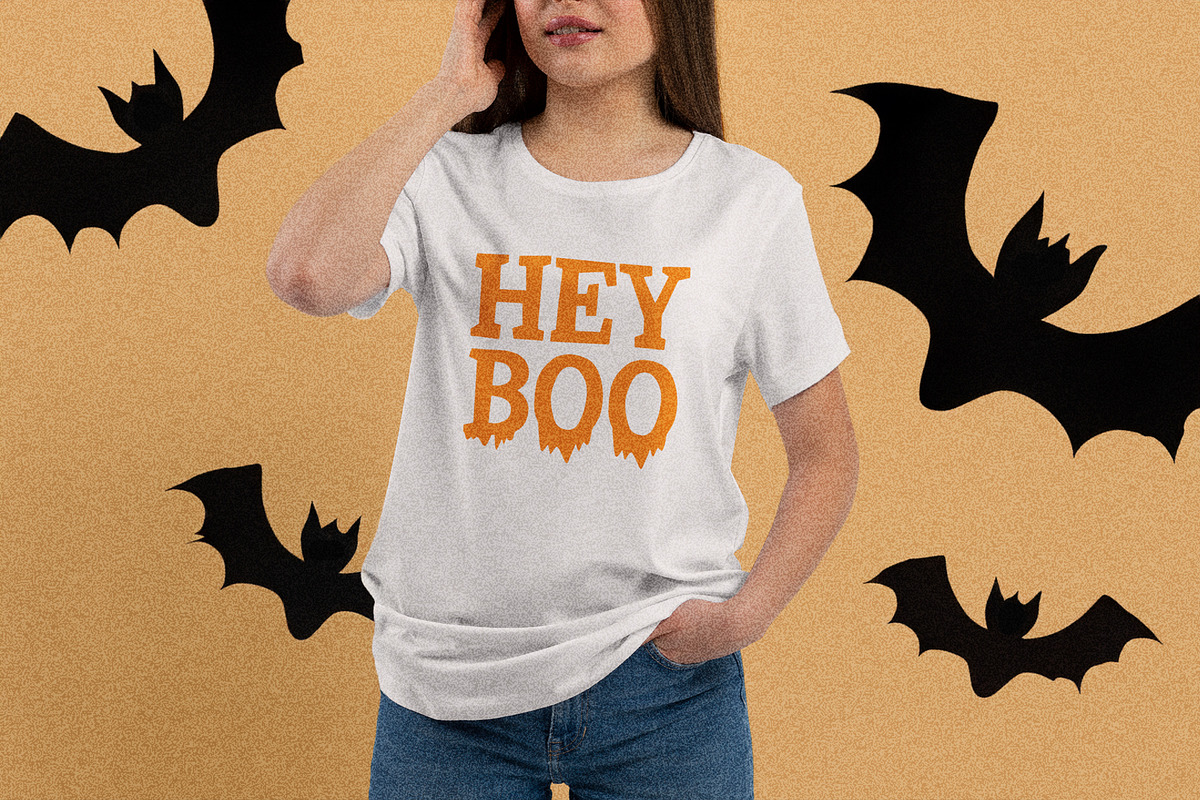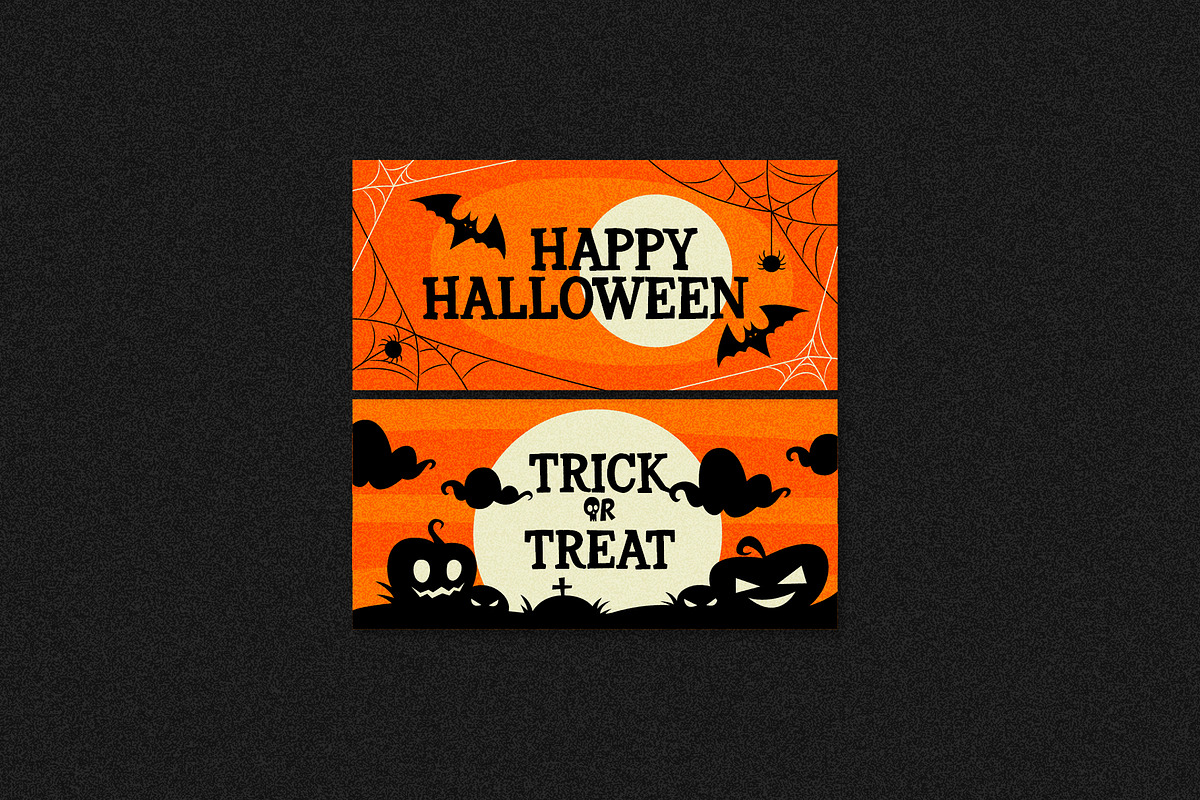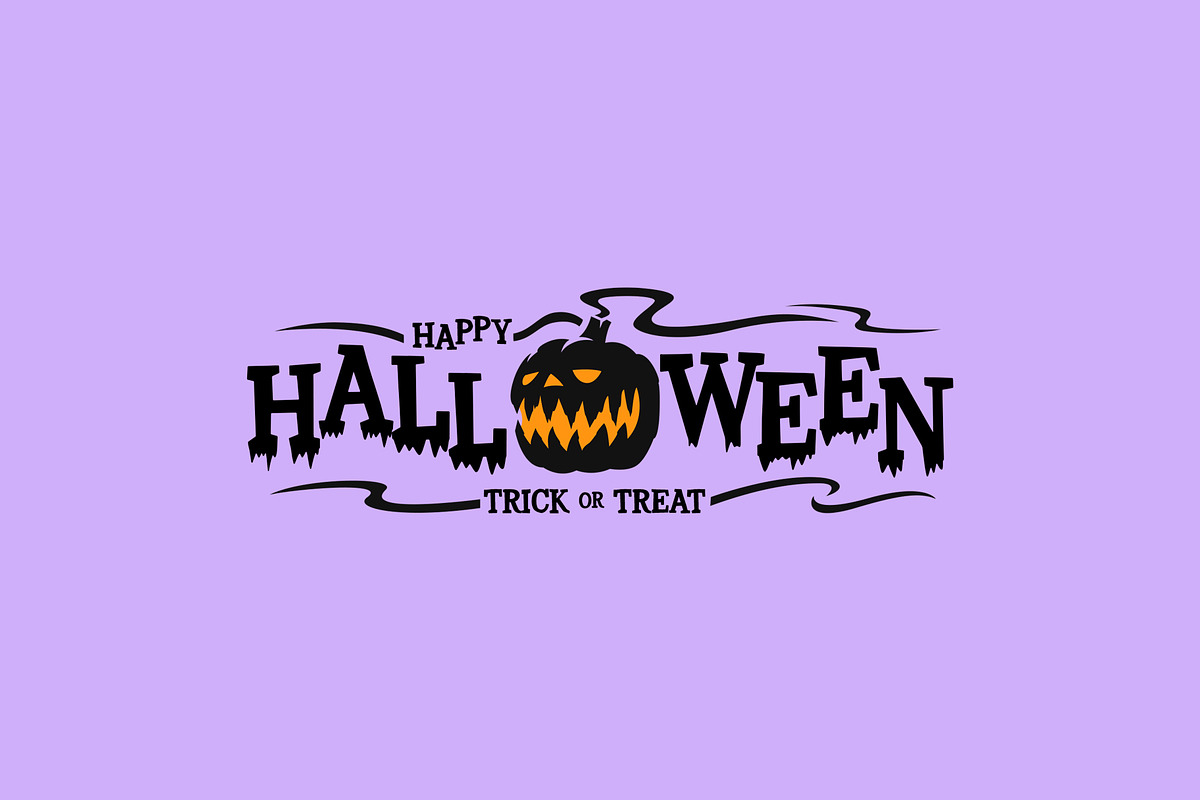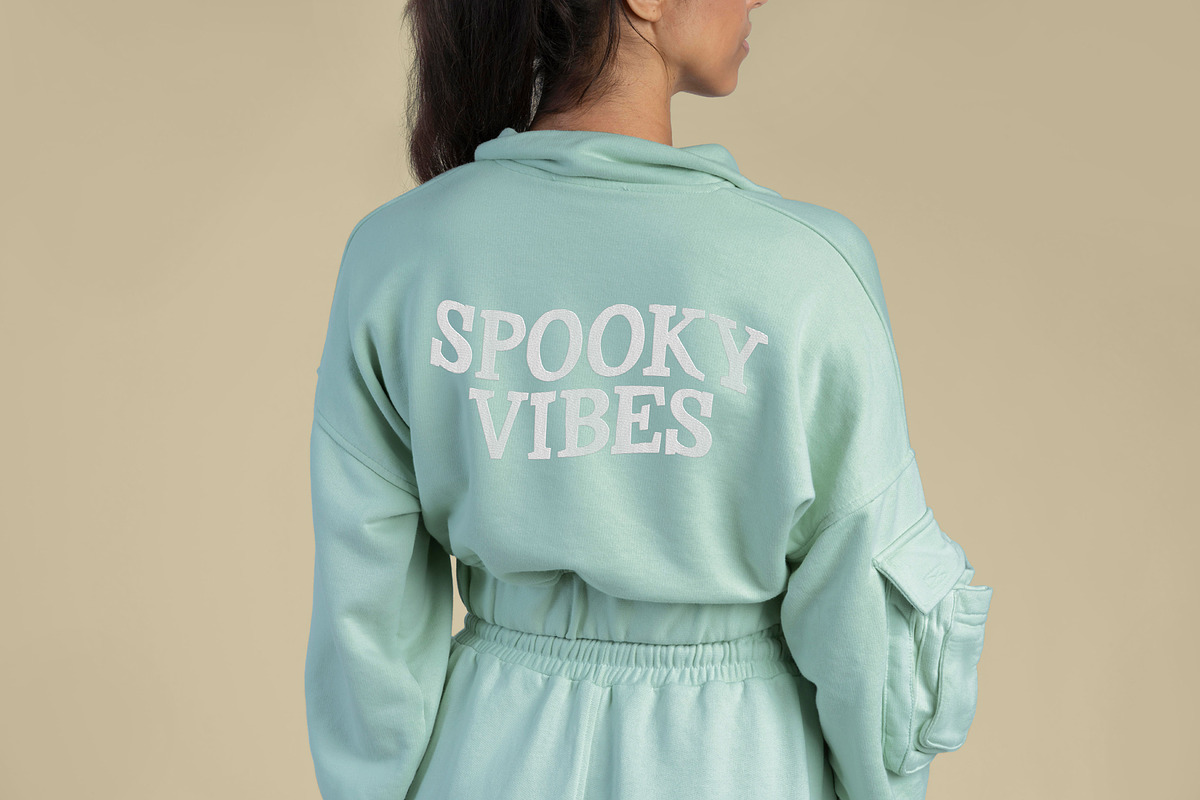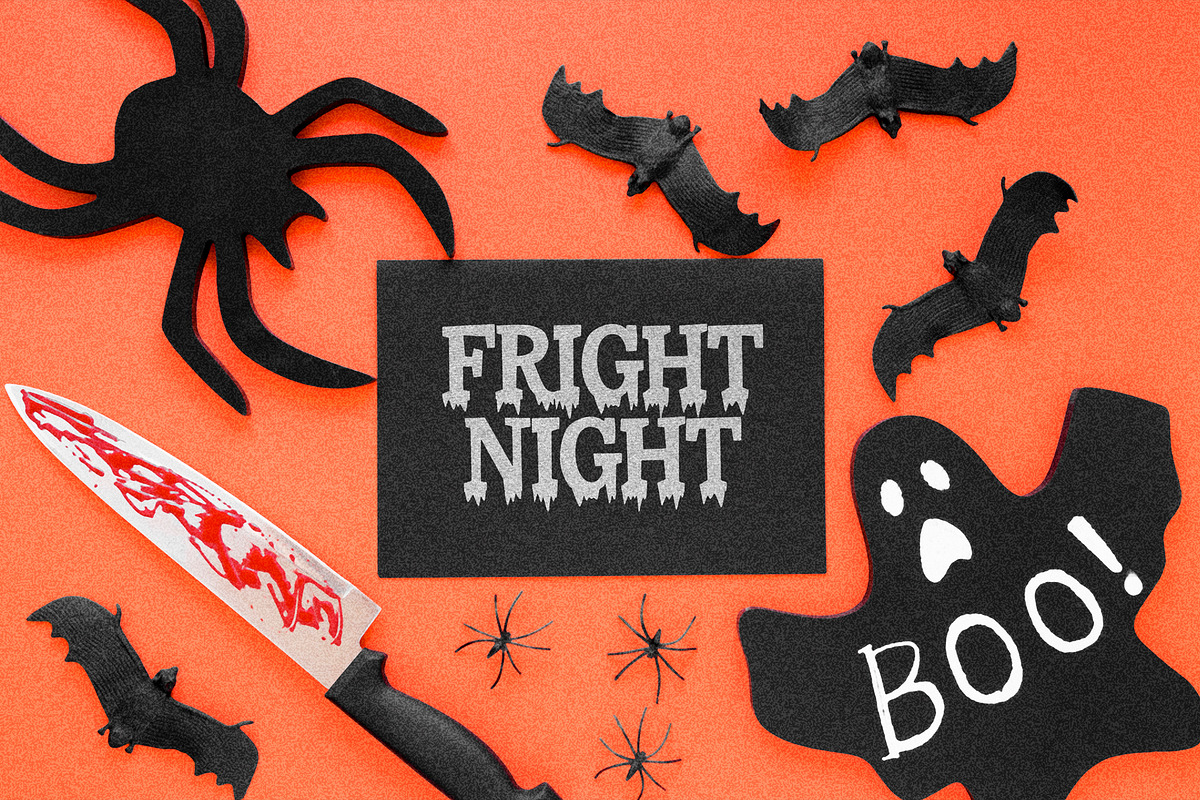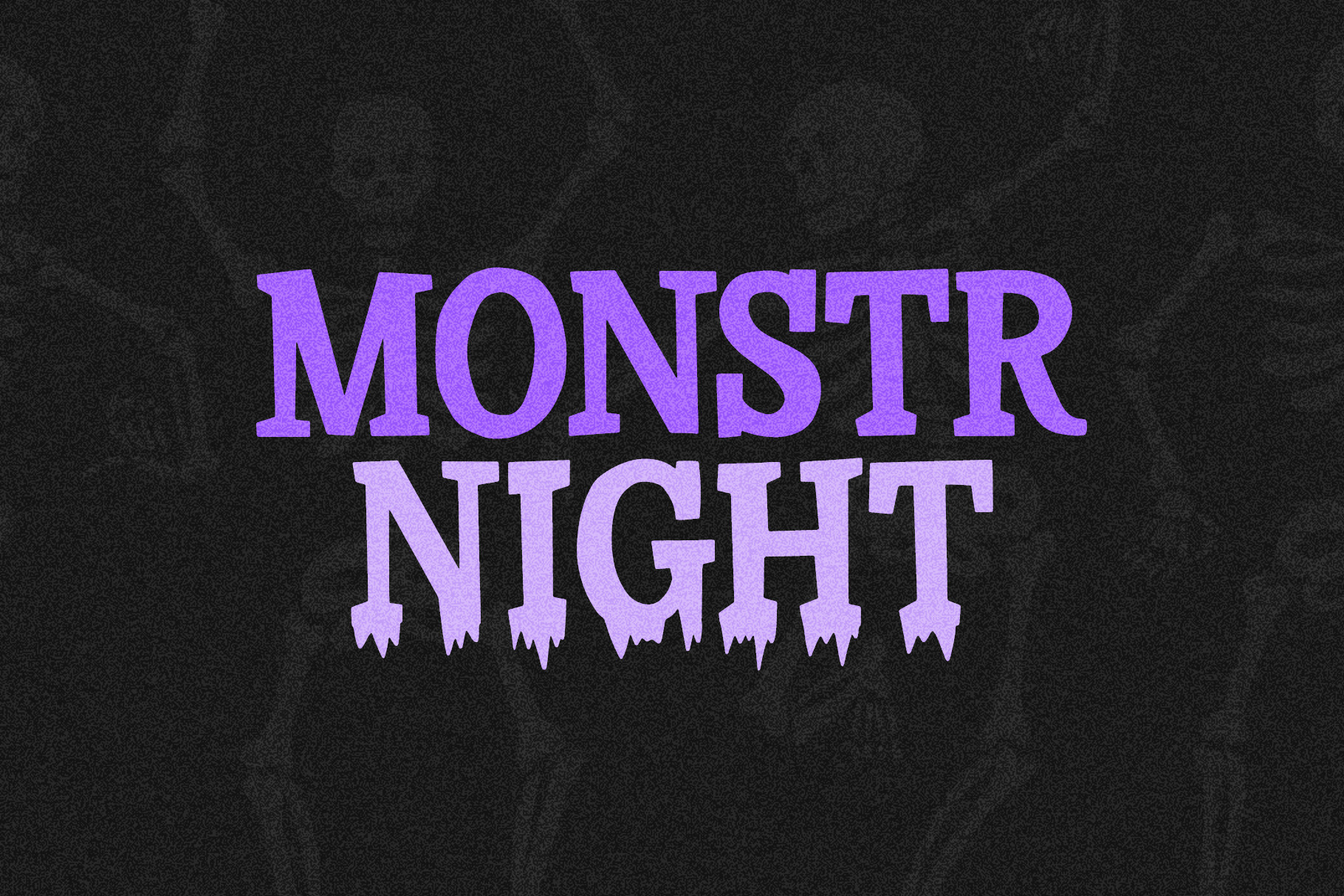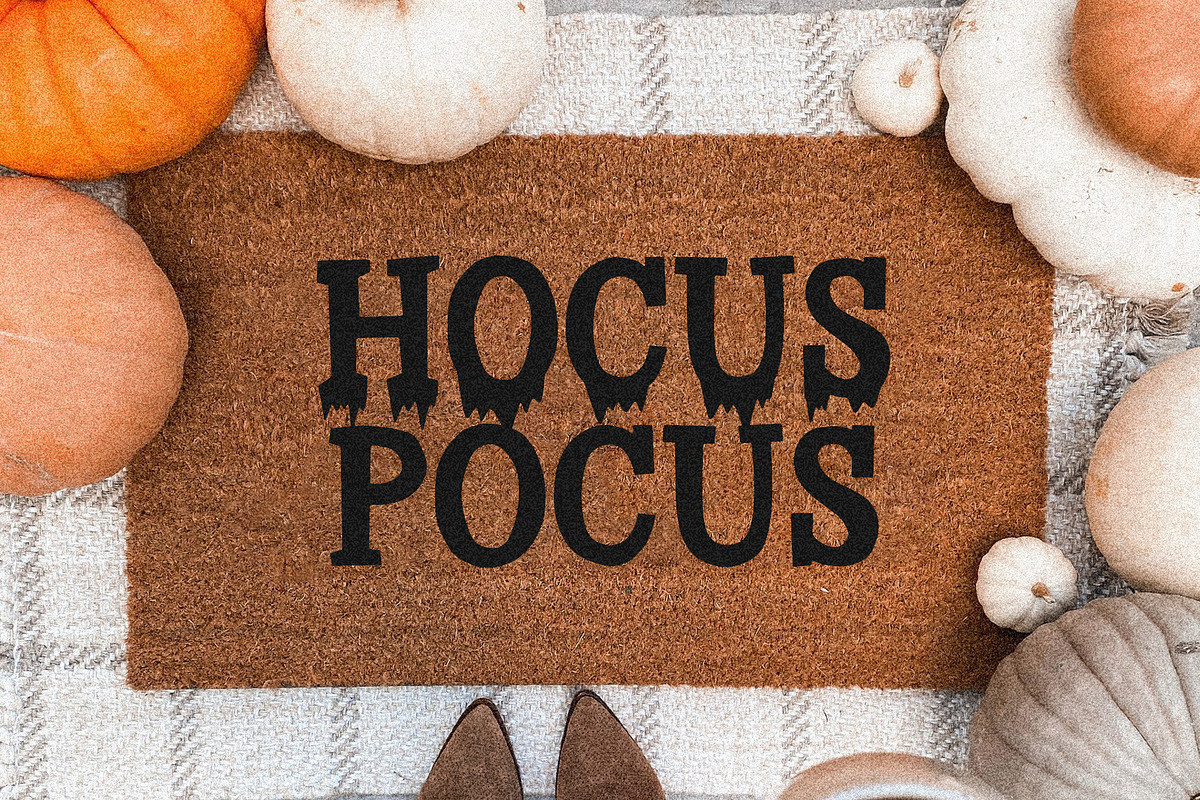
Monster Night spooky halloween font
Monster Night spooky halloween font will be perfect for halloween lettering, beautiful frame for your home, book covers, greeting cards, logos, marketing, magazines or anything that requires cute handwritten lettering :)